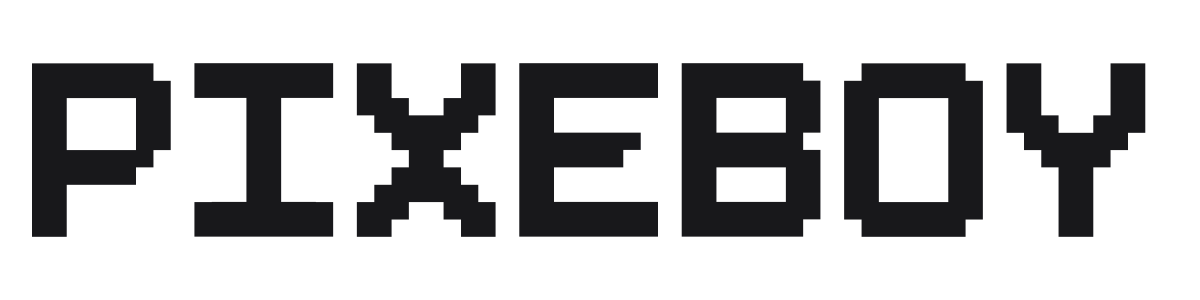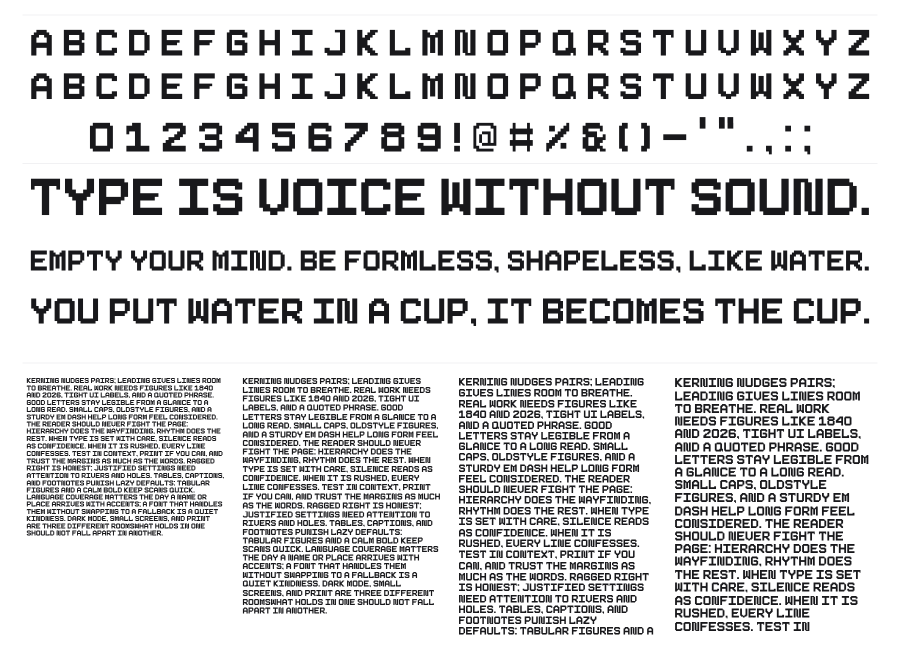
Pixeboy
Pixeboy is a bold bitmap pixel font built on a rigid square grid with heavy, blocky characters and crisp staircase edges. Its chunky weight and arcade-era construction give it immediate retro-gaming energy. Strong for game titles, app icons, and youth-facing branding that wants an unmistakable 8-bit personality.